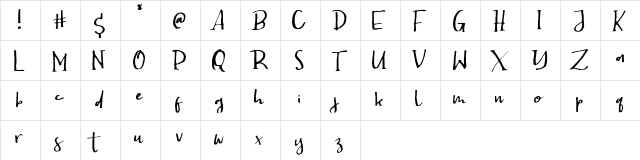
Hector Regular
Regular · Awan Awan ·
Foundry Awan
FoundryAwan
DesignerAwan
Design Context for Hector Typeface
Hector is a composed and adaptable typeface that performs quietly and consistently across a wide range of design contexts.